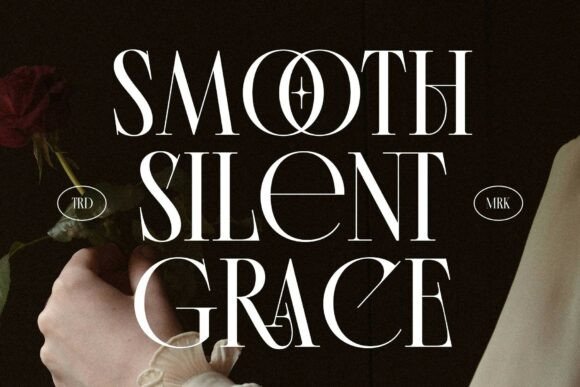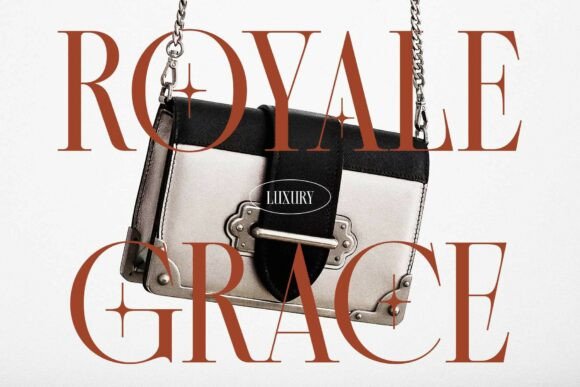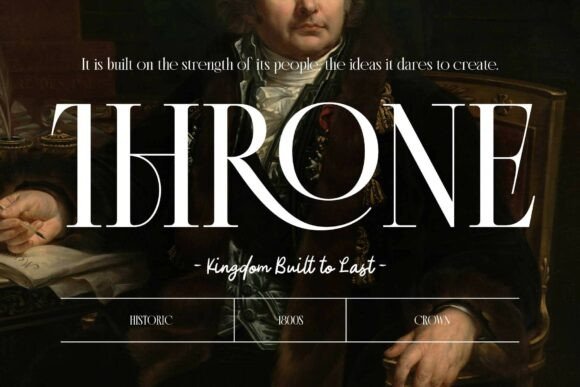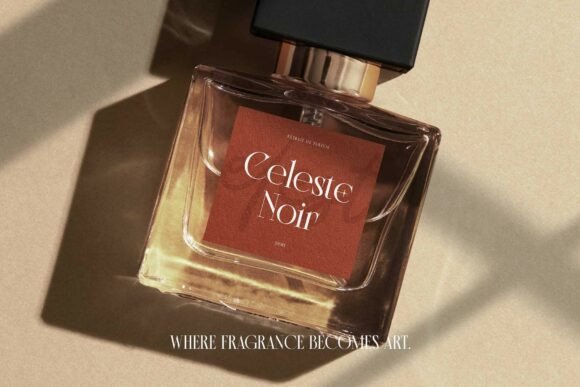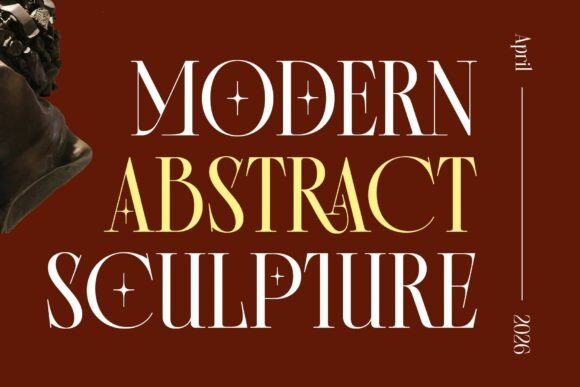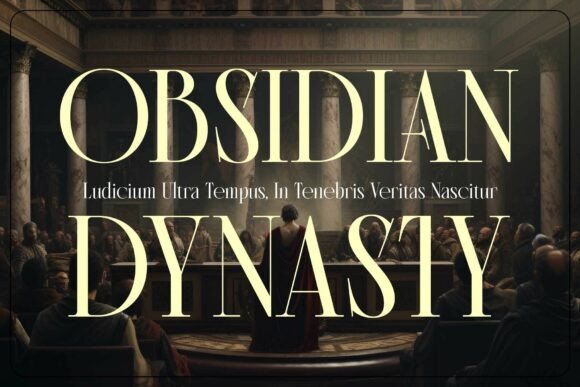
Introduction to Morside Font
Morside is a refined modern serif typeface that blends timeless elegance with contemporary sophistication.
Designed with high contrast strokes, graceful curves, and distinctive details, it creates a luxurious and artistic impression that feels both classic and fresh Perfect for luxury branding, fashion visuals, quotes, labels, magazine layouts, packaging, and wedding design, Morside brings a sense of class and confidence to any project.